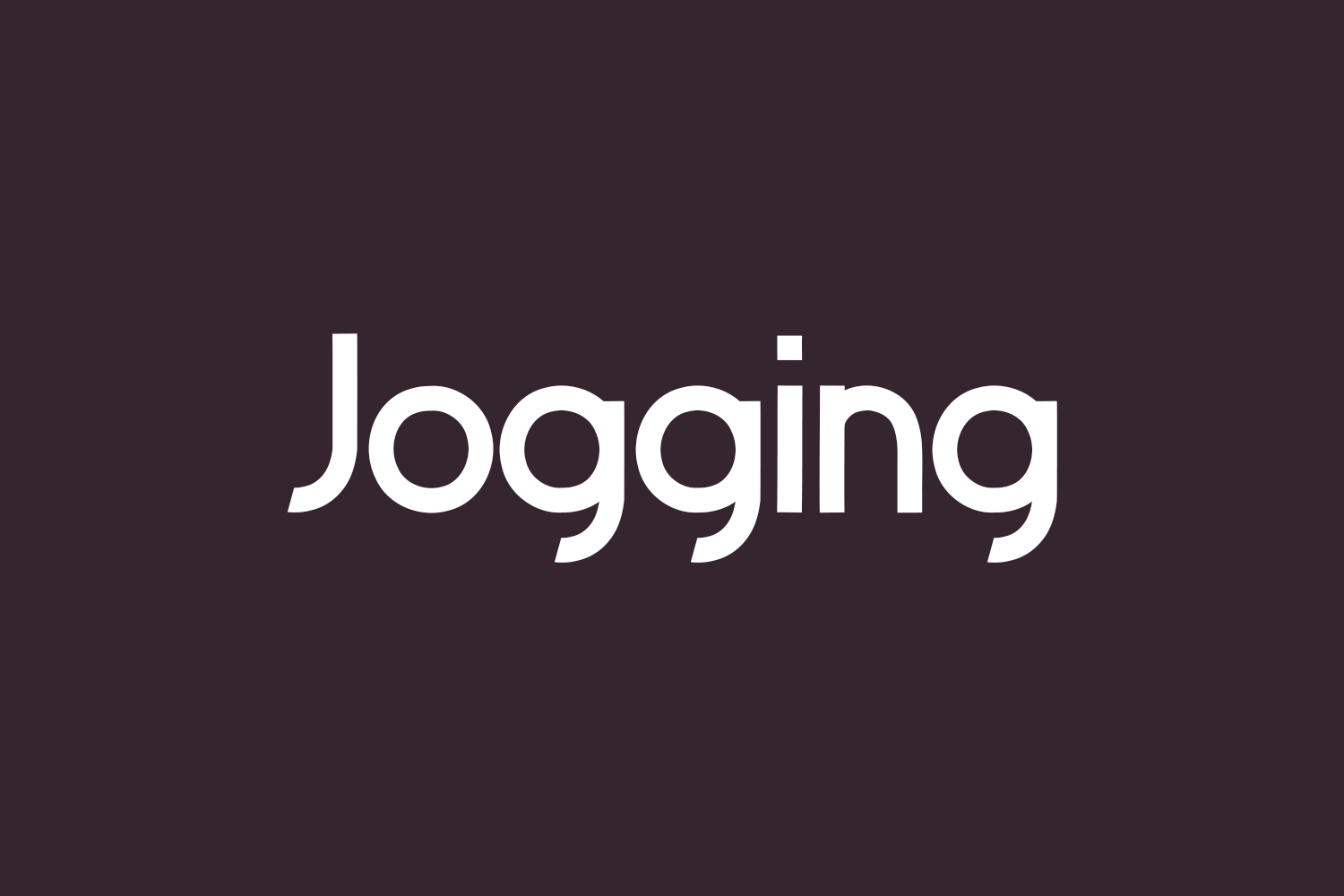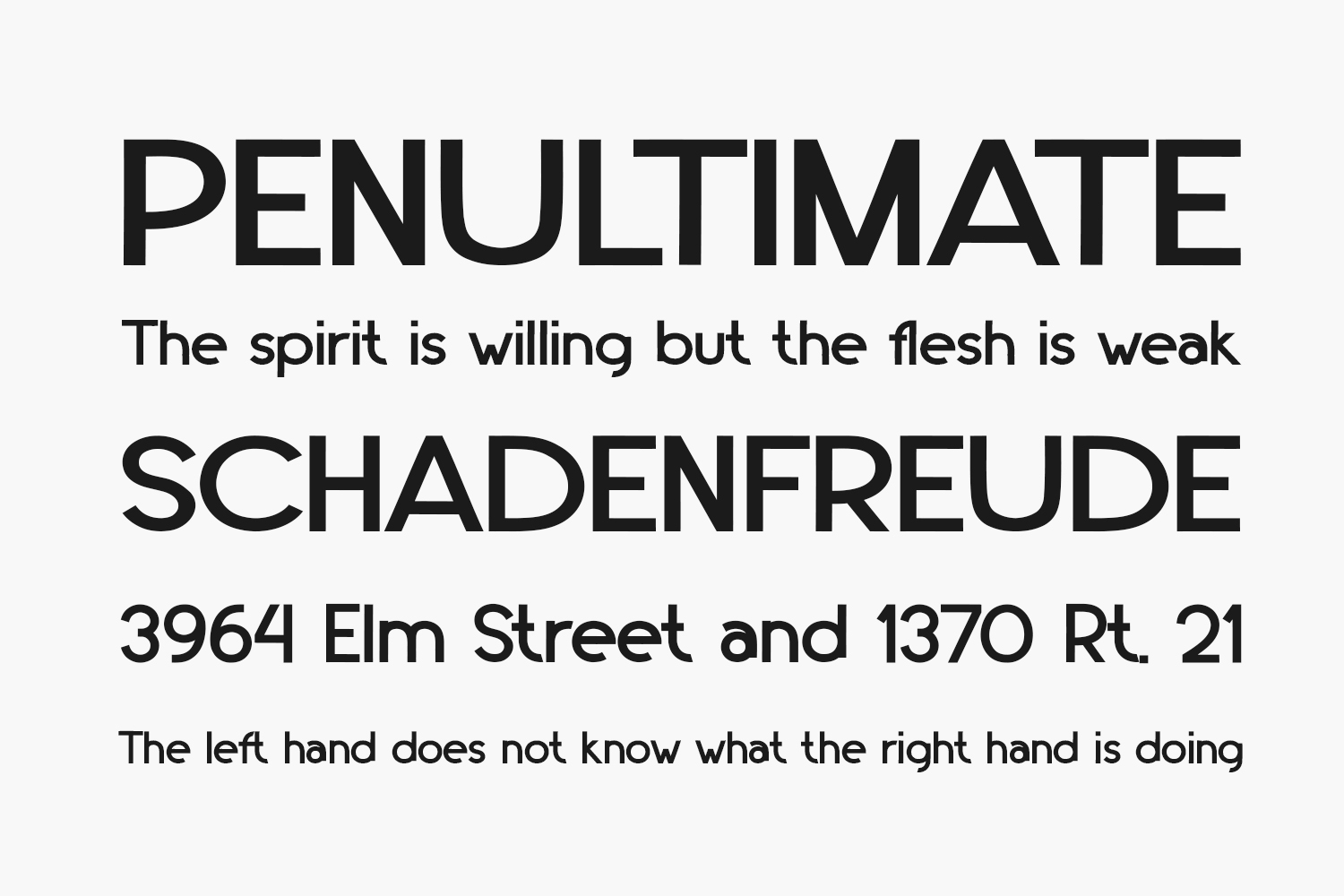
Jogging is a clean and minimal sans serif font designed to bring clarity and modern simplicity to your creative projects. With its neat structure, balanced proportions, and contemporary look, this free font is ideal for crafting elegant UI elements, readable body text, minimalist logos, and more. Available in OTF format with basic Latin support, Jogging can be used freely for personal and demo purposes, but requires permission from the author for commercial use.
Why Choose Jogging?
- Minimal Style: A sleek, modern sans-serif that blends well with both digital and print designs.
- Readable & Neat: Designed with optimal spacing and legibility in mind, making it great for user interfaces and editorial layouts.
Where to Use Jogging?
Jogging shines across a variety of creative applications:
- UI/UX Design: Great for websites, apps, and interface components where clarity is key.
- Editorial Projects: Ideal for body text, captions, or minimalist headers in magazines and blogs.
- Social Media Graphics: Use it for clean, modern quote cards or Instagram stories.
- Personal Logos: Create a subtle brand identity for side projects or portfolios.
- Mockups & Demos: Perfect for showcasing design concepts before finalizing with a licensed font.
Design Tips with Jogging
To maximize the impact of Jogging, pair it with clean sans serif fonts like Laachir Deeper or Circular for contrast and readability. Use it at large sizes for maximum visibility in posters or digital banners. For web use, apply it to short phrases with vibrant backgrounds to enhance legibility. Try our interactive font preview tool below to test Jogging with your own text before downloading!